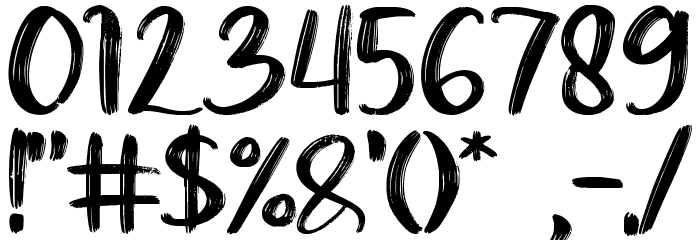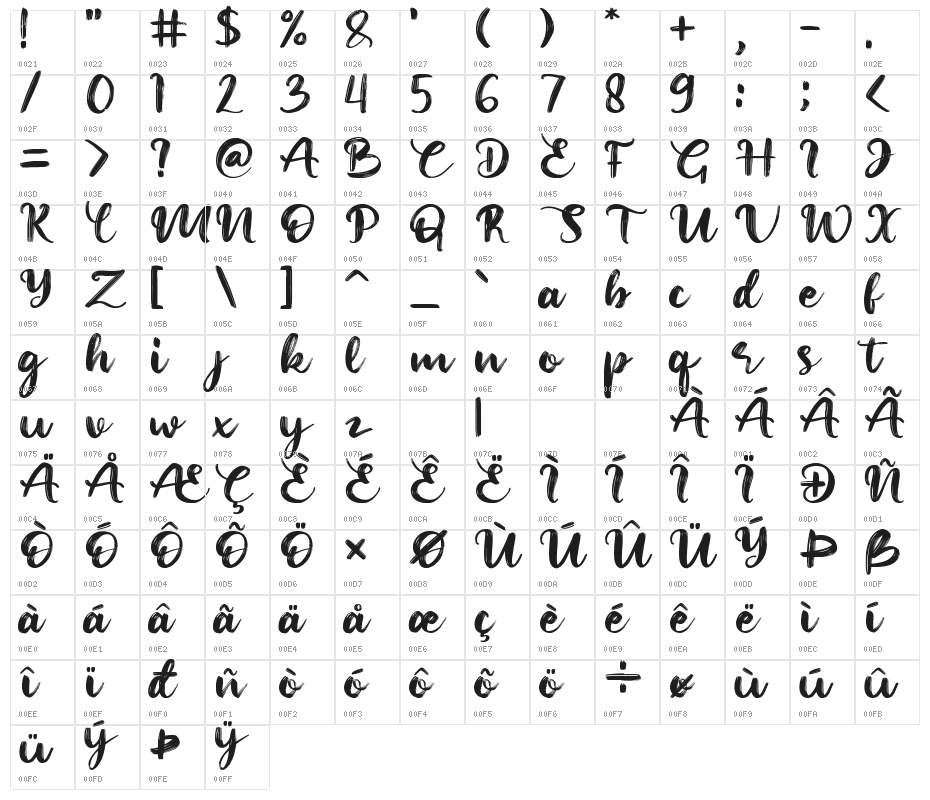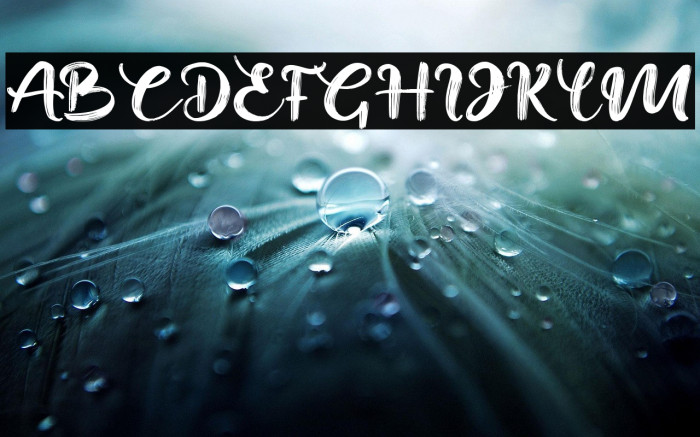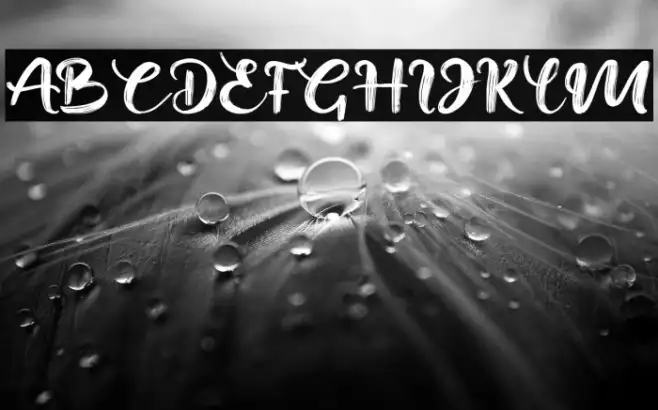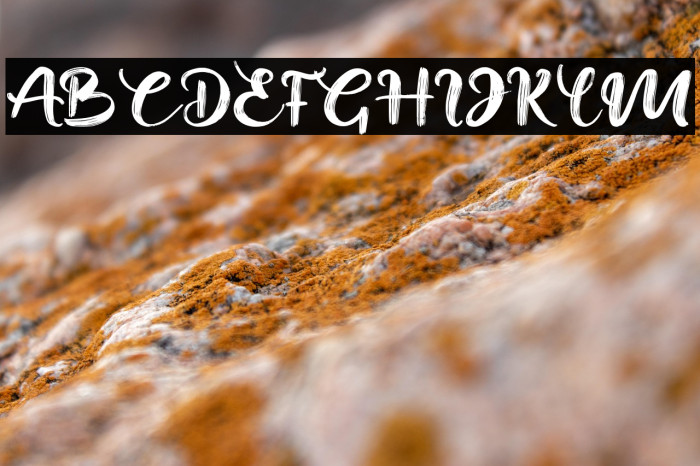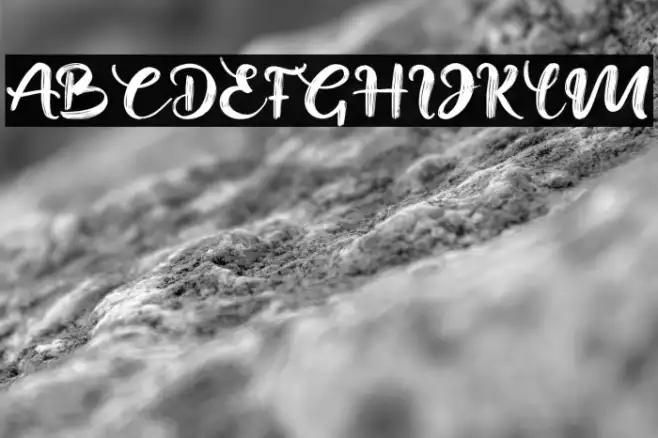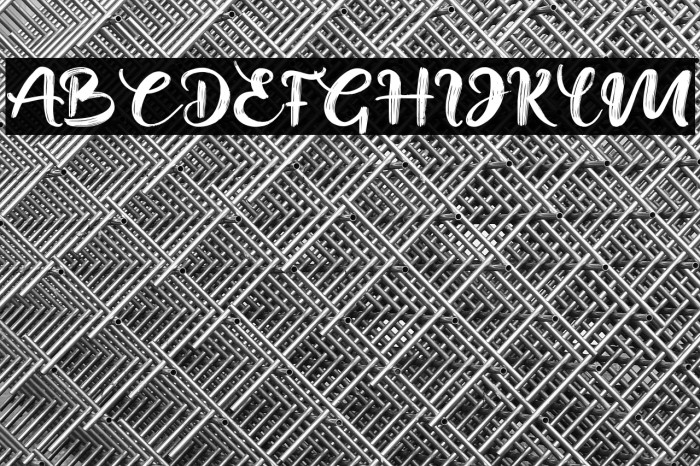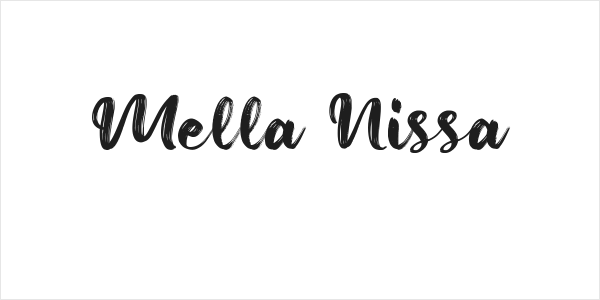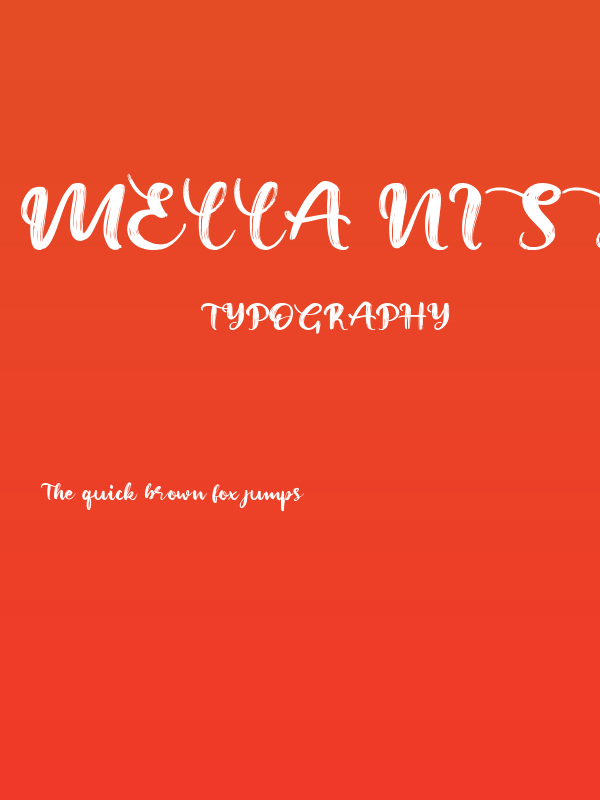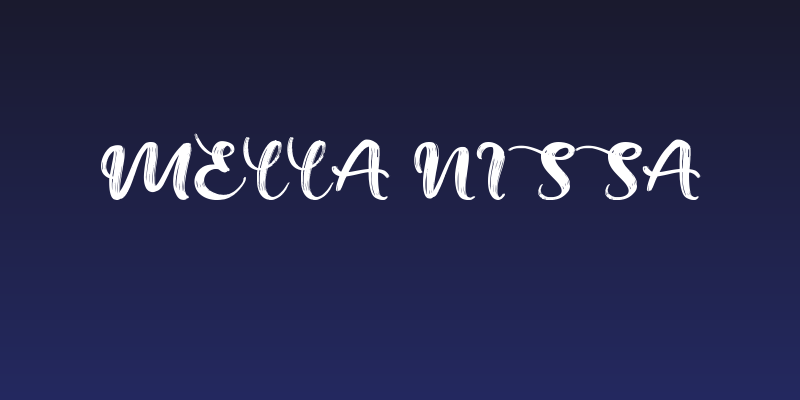
Mella Nissa Font
Mella Nissa Description
This font exudes a bold and expressive style, characterized by its brush-like strokes and dynamic flow. The uppercase letters are robust and impactful, with a sense of movement that suggests a hand-painted aesthetic. The lowercase letters maintain this fluidity, offering a cohesive and artistic appearance. The numerals are equally bold, providing a strong visual presence. Special characters are integrated seamlessly, maintaining the overall artistic flair. This font is ideal for projects that require a personal touch, such as invitations, posters, or branding materials that aim to convey creativity and individuality.
| Overall Style | Artistic, Expressive |
| Proposed Projects | Ideal for creative projects like invitations, posters, branding, and artistic designs. |